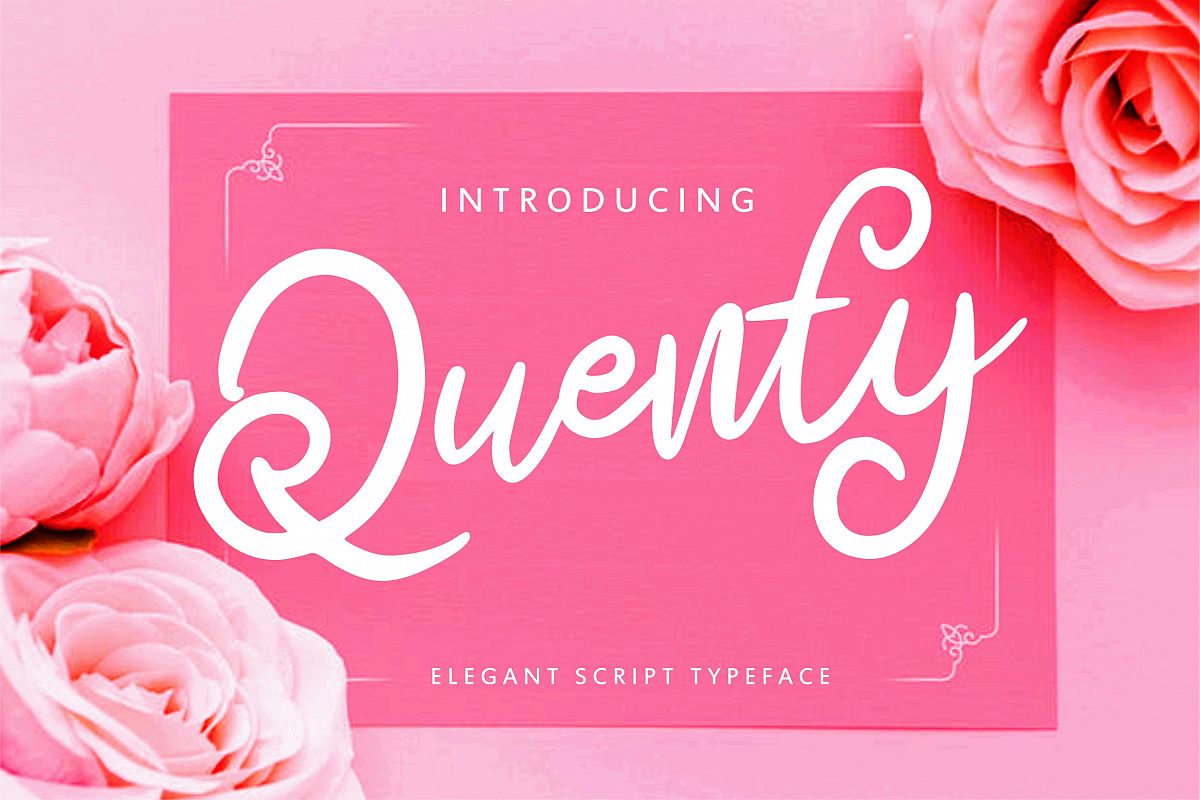
Quenty - Elegant Script Typeface
Quenty
Quenty - Elegant Script Typeface
So beautiful on invitation like greeting cards, branding materials, business cards, quotes, posters, and more!